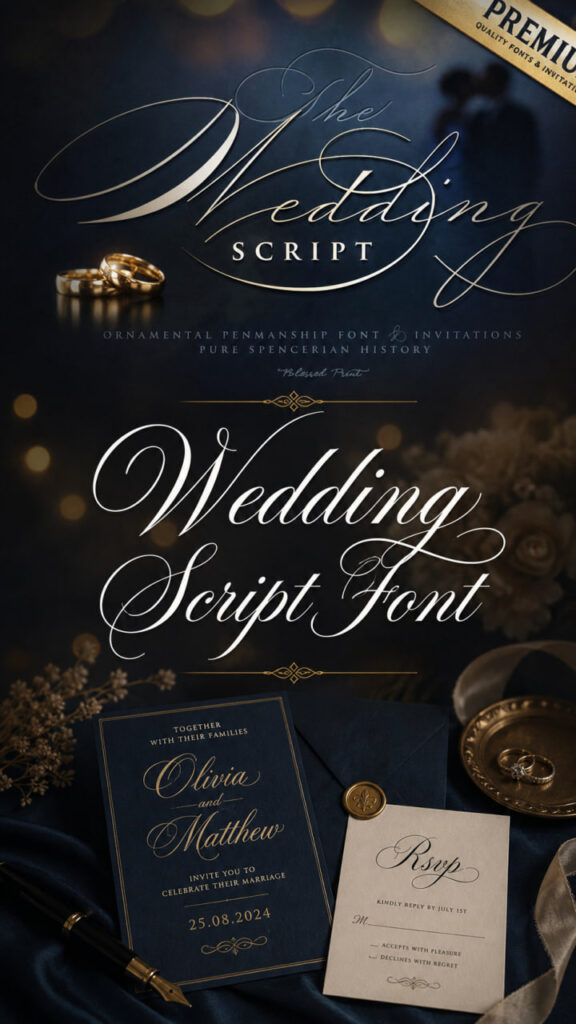
Wedding Signature Script Font #1
If you are looking for a typeface that embodies romance and personal touch, look no further than Wedding Signature. This is a beautiful calligraphy handwritten script font that I’ve found to be incredibly versatile for almost any creative endeavor. Its fluid strokes give it an authentic, hand-inked feel that looks fantastic whether you are working on high-end stationery or casual merchandise.
In my design practice, I’ve seen this script font shine across a huge variety of projects, including:
• Custom Merchandise: Adding a sophisticated touch to t-shirt and mug designs.
• Digital Content: Elevating digital designs and social media graphics.
• Handcrafted Goods: Perfect for DIY crafts, greeting cards, and personalized gifts.
• Special Events: Bringing that essential “signature” look to wedding-themed projects.
One of the best parts for fellow designers is that this font is PUA encoded. This means you can easily access all the stunning glyphs and ligatures to customize your text without any technical headaches.
Wedding Dream Script Font #2
I recently came across Wedding Dream, and it is one of those typefaces that manages to feel equally charming and elegant. As a designer, I’m always looking for a script font that can transition smoothly between a romantic, high-end wedding invitation and a professional business card, and this one hits the mark perfectly. It provides that sought-after handwritten touch that makes any project feel more personal and high-quality.
I highly recommend this script font for a variety of creative uses, particularly:
• Wedding Stationery: It looks stunning on invitations and thank-you cards.
• Branding: Ideal for creating sophisticated logos and memorable business cards.
• Editorial & Social: Perfect for stylized quotes and heartfelt greeting cards.
Plus, for those who love to customize their typography, this font is PUA encoded. If your work needs a touch of grace and a human feel, Wedding Dream is a fantastic addition to your collection.
Wedding Script Font #3
If you are searching for a typeface that truly embodies the grandeur of a special occasion, look no further than Wedding Script. This is a gorgeously ornamented script font that is both elegant and striking, making it an immediate standout in any design. As a designer, I appreciate how the intricate details give it a formal, high-end feel that feels far more expensive than it is.
In my professional experience, this script font is the ultimate choice for projects that require a touch of traditional beauty:
• Wedding Invitations: It sets a tone of luxury and romance right from the first glance.
• Event Menus: Perfect for creating a sophisticated dining atmosphere at weddings or galas.
• Logo Design: Adds a refined, ornamental flair to boutique brands and personal identities.
Nostalgic Wedding Script Font #4
I’ve been obsessed lately with designs that feel like they have a story to tell, and Nostalgic Wedding is a perfect example. This is a lovely and timeless handwritten script font that brings a sense of history and warmth to the screen or page. Each letter carries a unique and beautiful touch, which is exactly what you need when you want your design to truly come alive rather than just sitting there flat.
In my design work, I’ve found this script font to be a top-tier choice for:
• Eye-Catching Logos: Giving brands a memorable and personal identity.
• Creative Branding: Perfect for projects that require a sophisticated, “one-of-a-kind” feel.
• Stylized Quotes: Making social media graphics or print art feel more expressive and heartfelt.
Another reason I highly recommend it is that it’s PUA encoded.
Wedding Minimalist Script Font #5
In a design world that often feels cluttered, there is something incredibly refreshing about the Wedding Minimalist typeface. It is a delicate and distinct script font that prioritizes clean lines and a smooth, flowing rhythm. I’m a huge fan of this style because it manages to feel “alive” and energetic without being overwhelming—it’s that perfect “less is more” approach that makes a creative idea truly pop.
Its slender letterforms are beautifully balanced, making it an ideal script font for modern, high-end projects. I find it works best for:
• Modern Wedding Stationery: Perfect for couples who want a chic, understated look.